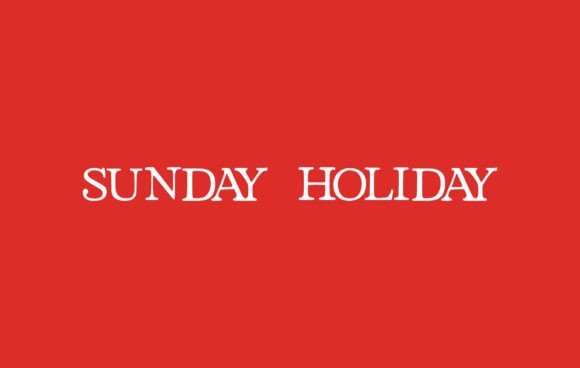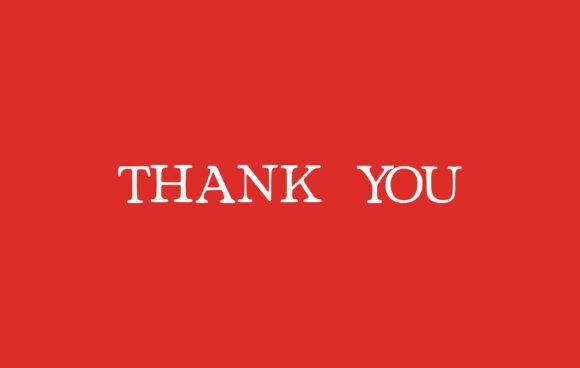
Introduction to Matteo Font
Remember that moment when you’re brainstorming for your next creative project, and you need the perfect font to bring your idea to life? The right font can make all the difference, elevating your design from ordinary to extraordinary. That’s exactly what Matteo Font offers – a true gem for designers seeking to add a touch of romance and elegance to their work.
As a designer, you’re constantly on the lookout for high-quality design resources that can help you stand out in a crowded market. Matteo Font is one such treasure, expertly crafted to be both legible and visually stunning. Whether you’re working on a magazine headline, social media post, or wedding invitation, this font is sure to captivate your audience.
Key Features of Matteo Font
- Matteo Font comes with a transparent background, making it easy to integrate into various design elements.
- Features a unique, elegant design that can be used for a variety of purposes, from branding to editorial content.
- Perfect for designers looking for a high-quality, free design resource to elevate their creative projects.
Honest Review: Matteo Font
As a designer, I’m always on the lookout for high-quality fonts to enhance my creative projects. I recently came across Matteo Font, a free download that caught my attention. In this review, I’ll share my honest thoughts on what works well and any limitations I encountered.
- Unique and elegant design: Matteo Font boasts a sophisticated look that’s perfect for modern design projects.
- High-quality glyphs: The font’s high-quality glyphs ensure crisp and clear text rendering, making it ideal for both digital and print projects.
- Transparent background: Matteo Font comes with a transparent background, allowing for easy integration with any design resource or creative project.
- Limited character set: Matteo Font’s character set is relatively limited, which might not be suitable for projects that require a wide range of characters.
- Not ideal for bold typography: While Matteo Font looks great in smaller sizes, it might not be the best choice for bold typography due to its delicate design.
Overall, I’m impressed with Matteo Font’s unique design and high-quality glyphs. While it has some limitations, it’s a great addition to any designer’s toolkit. If you’re looking for a free, high-quality font for your creative project, Matteo Font is definitely worth checking out.
The Matteo Font is particularly useful for creating wedding invitations, business cards, and other design projects that require a touch of sophistication and elegance.
To get the most out of the Matteo Font, use it with a transparent background to create a clean and minimalist design. You can also experiment with different font sizes and styles to add depth and visual interest to your projects.